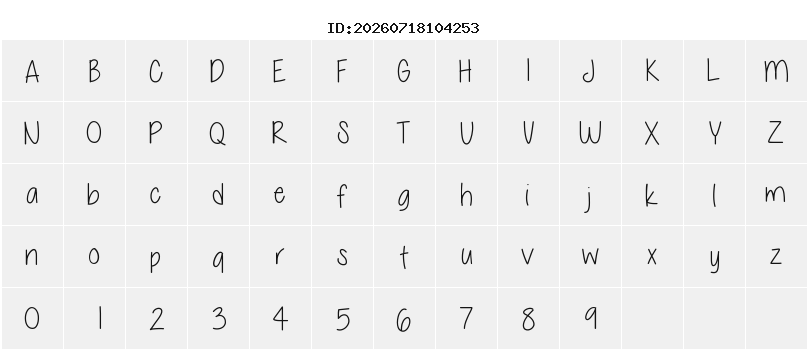
Celia Garcia Preview
• Font Name: Celia Garcia
• Full Font Name: Celia Garcia
About Celia Garcia.ttf
Celia Garcia.ttf is a modern, elegant sans-serif font designed for ultimate readability and visual harmony. Perfect for branding, headlines, web design, and print materials.